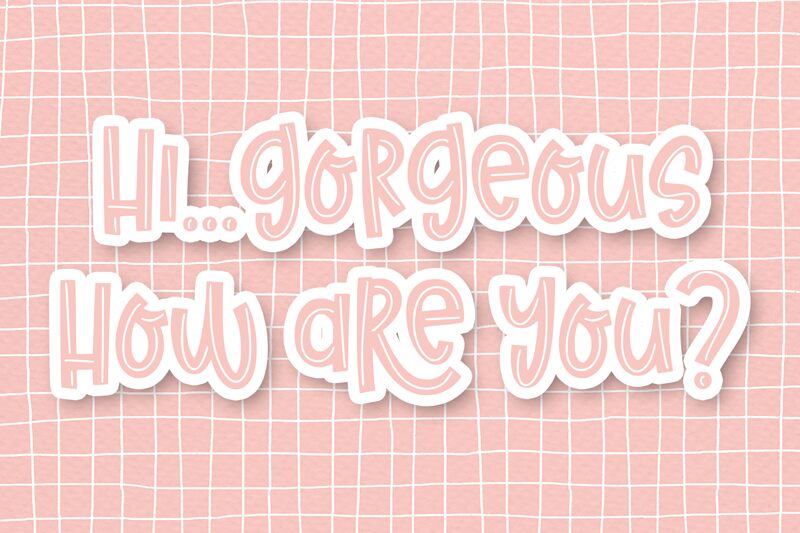
Todays Dream by Abo Daniel Studio is a captivating display font that exudes a whimsical, handcrafted charm. Its condensed width and striking brushstroke-inspired letterforms create a sense of movement and energy, inviting the viewer to engage with the text. The font's playful, organic aesthetic evokes feelings of warmth and nostalgia, making it a versatile choice for a wide range of design projects.
This font's unique characteristics lend themselves well to creating eye-catching headers, bold signage, and attention-grabbing branding elements. Its expressive, signature-like quality can instantly elevate any design, whether in the realm of fashion, editorial, or even personal stationery. Todays Dream by Abo Daniel Studio is a captivating addition to any designer's toolkit, promising to leave a lasting impression on the viewer.